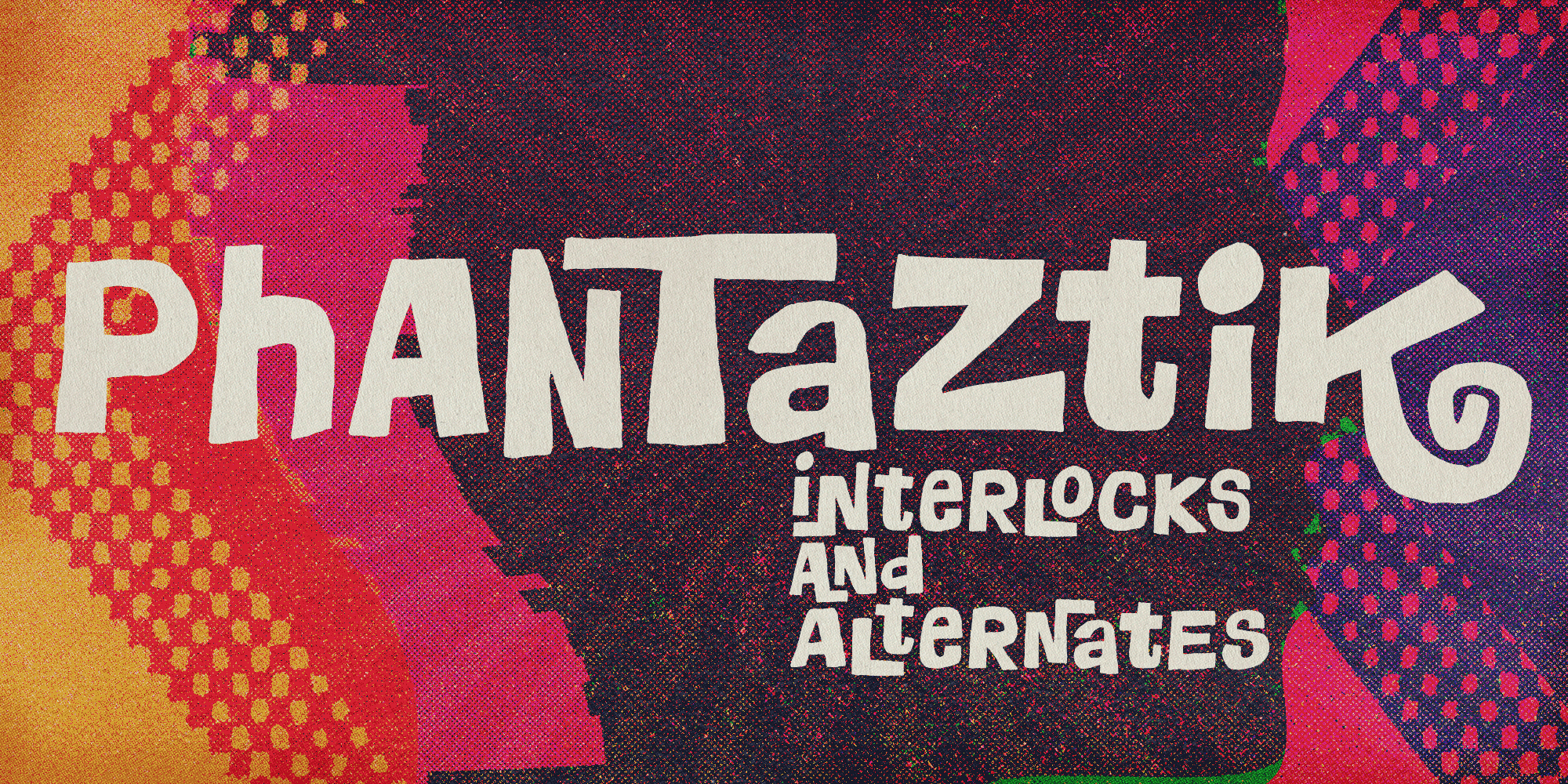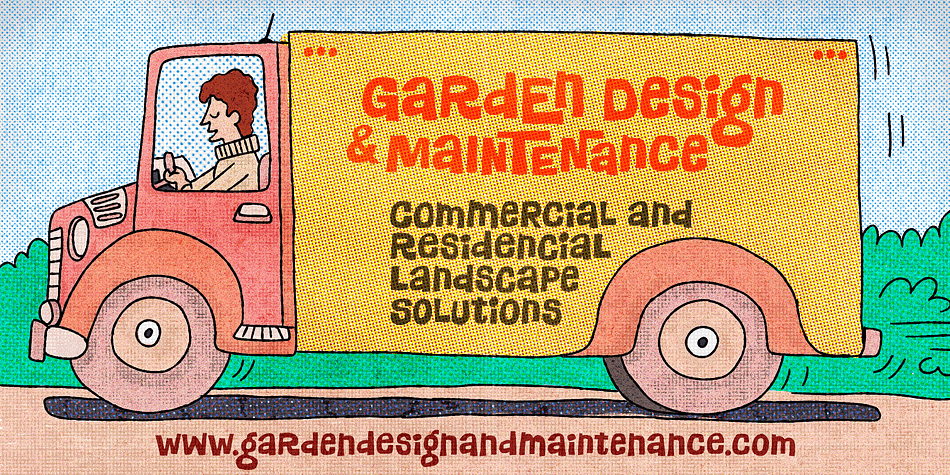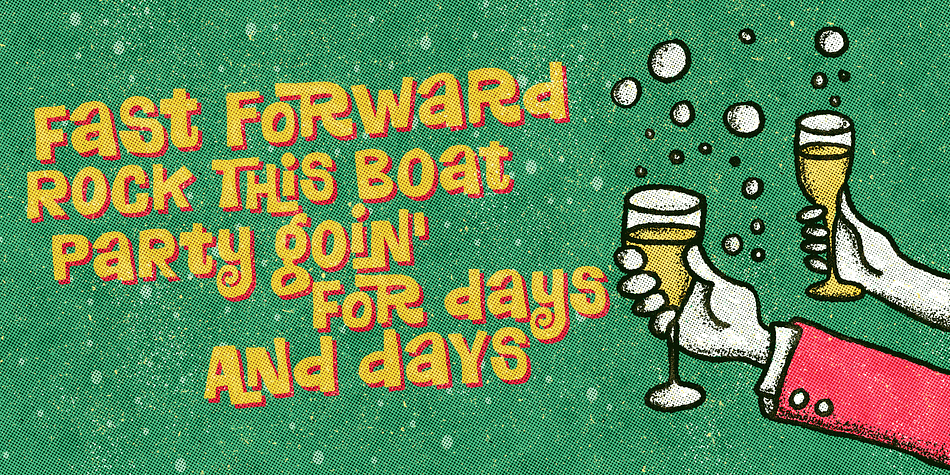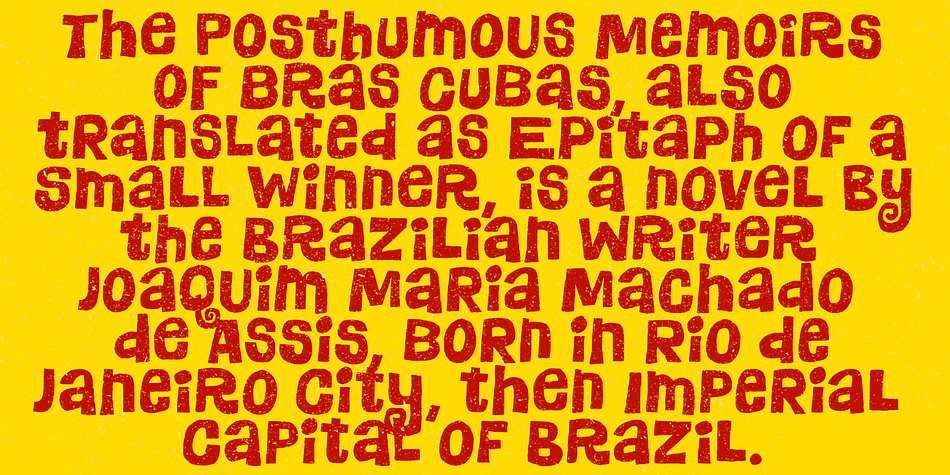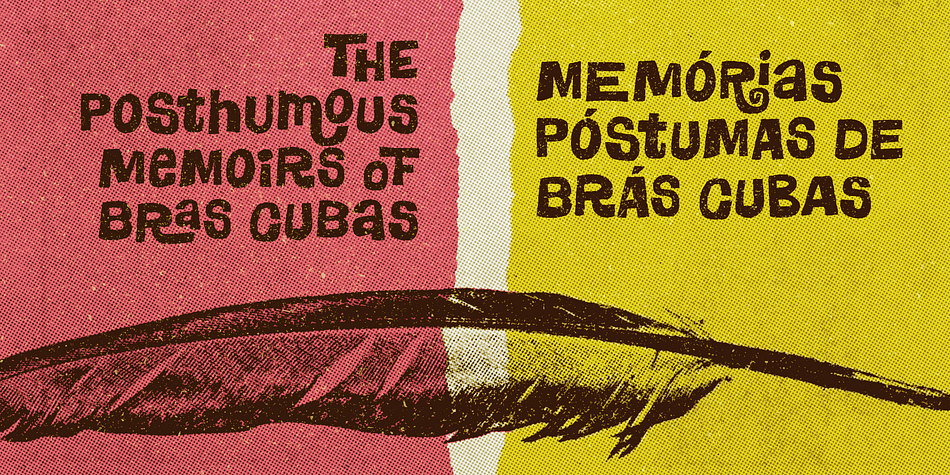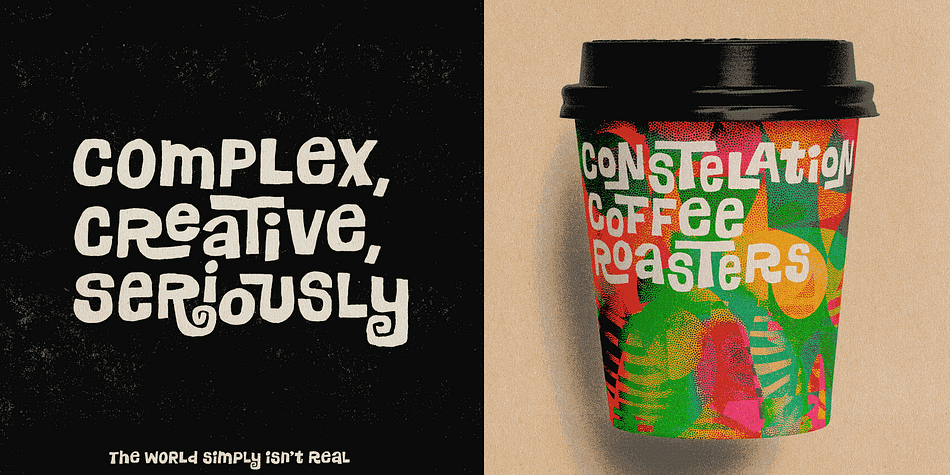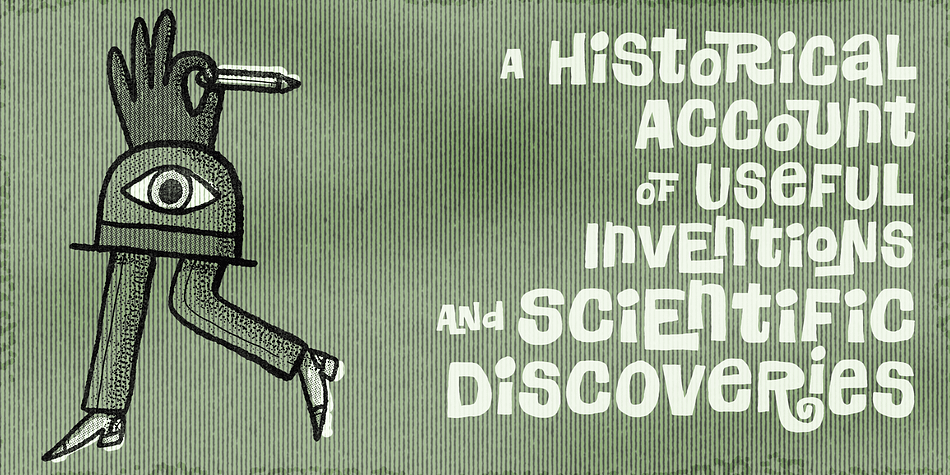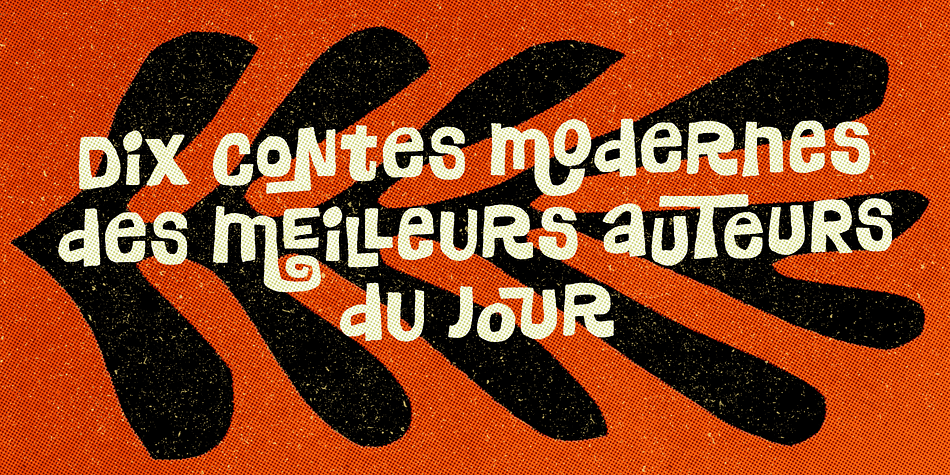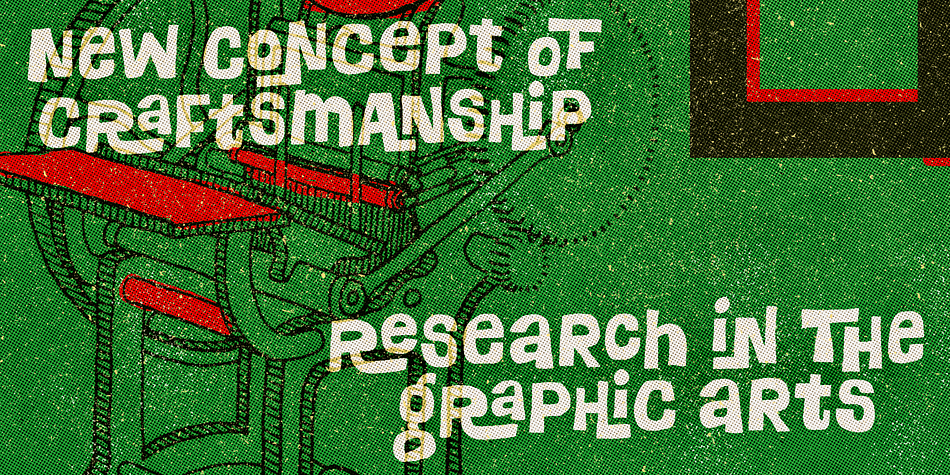
Designed by Ricardo Marcin and Erica Jung, Phantaztik is a display sans and hand display font family published by PintassilgoPrints.
Phantaztik is a bold and groovy font packed with stylish interlocks, uncommon alternates, extended language coverage, and clever OpenType programming. Full of cheer and optimism, it’s a fantastic option for packaging projects, book covers, game titles, apparel, and many more creative applications.
Styles | Display Sans, Hand Display |
Designers | Ricardo Marcin, Erica Jung |